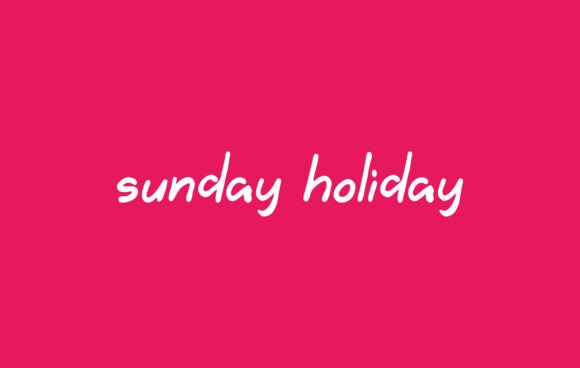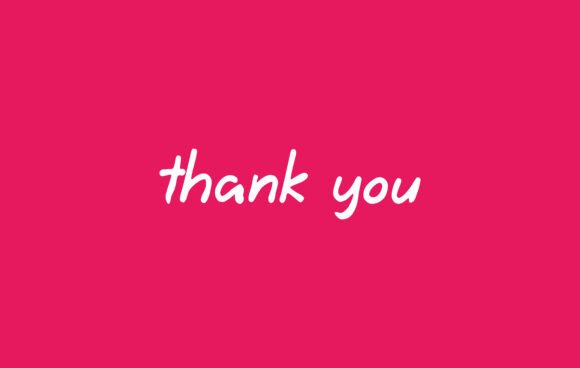
Introducing Happy Healthy Font: The Perfect Handwritten Font for Your Creative Projects
Are you tired of using the same old fonts for your creative projects? Do you want to add a touch of romance and personality to your designs? Look no further than Happy Healthy Font, an authentic handwritten font that is sure to become your new favorite. In this article, we’ll take a closer look at the features and benefits of Happy Healthy Font, and explore how it can elevate your designs to the next level.
What is Happy Healthy Font?
Happy Healthy Font is a beautifully designed handwritten font that exudes a sense of romance and whimsy. With its flowing lines and elegant curves, this font is perfect for adding a touch of sophistication to any design. Whether you’re working on a magazine headline, social media post, or wedding invitation, Happy Healthy Font is sure to make your text stand out.
Key Features of Happy Healthy Font
- Authentic Handwritten Style: Happy Healthy Font is designed to look like it was written by hand, giving it a unique and personal touch.
- Romantic Touch: The font’s elegant curves and flowing lines add a touch of romance to any design.
- Legible and Versatile: Happy Healthy Font is perfect for use as both title and body text, making it a versatile addition to any design project.
- Wide Range of Uses: This font is perfect for a variety of design projects, including magazine headlines, social media posts, branding, wedding invitations, cards, and more.
Benefits of Using Happy Healthy Font
So why choose Happy Healthy Font for your next design project? Here are just a few benefits of using this amazing font:
- Adds Personality to Your Designs: Happy Healthy Font is a unique and eye-catching font that will help your designs stand out from the crowd.
- Perfect for Creative Projects: Whether you’re a designer, crafty DIY enthusiast, or social media influencer, Happy Healthy Font is the perfect choice for adding a touch of elegance and sophistication to your creative projects.
- Easy to Read: Despite its elegant and cursive style, Happy Healthy Font is surprisingly legible, making it perfect for use as both title and body text.
How to Use Happy Healthy Font in Your Designs
Using Happy Healthy Font in your designs is easy! Here are a few tips to get you started:
- Pair it with Other Fonts: Try pairing Happy Healthy Font with other fonts to create a unique and eye-catching combination.
- Use it for Headlines and Titles: Happy Healthy Font is perfect for use as a headline or title font, adding a touch of elegance and sophistication to your designs.
- Add it to Your Social Media Posts: Use Happy Healthy Font to add a touch of personality to your social media posts and make them stand out from the crowd.
Who is Happy Healthy Font for?
Happy Healthy Font is perfect for a wide range of designers and crafters, including:
- Graphic Designers: If you’re a graphic designer looking for a unique and eye-catching font to add to your collection, Happy Healthy Font is a great choice.
- DIY Enthusiasts: If you love crafting and DIY projects, Happy Healthy Font is perfect for adding a touch of elegance and sophistication to your creations.
- Social Media Influencers: If you’re a social media influencer looking for a way to make your posts stand out, Happy Healthy Font is a great choice.